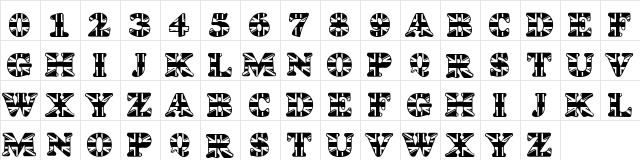
LMS God Save The Queen Regular Font Preview
LMS God Save The Queen Regular
Design Context for LMS God Save The Queen Typeface
LMS God Save The Queen is a composed and adaptable typeface that performs quietly and consistently across a wide range of design contexts.